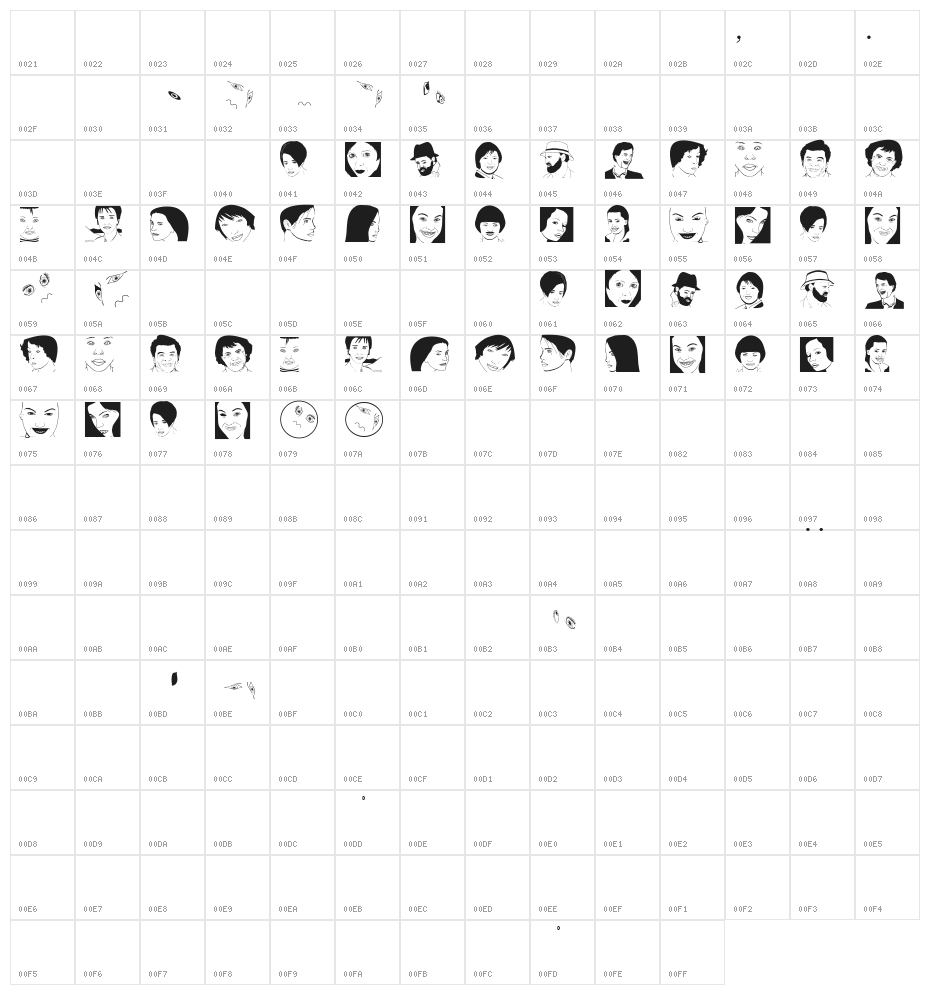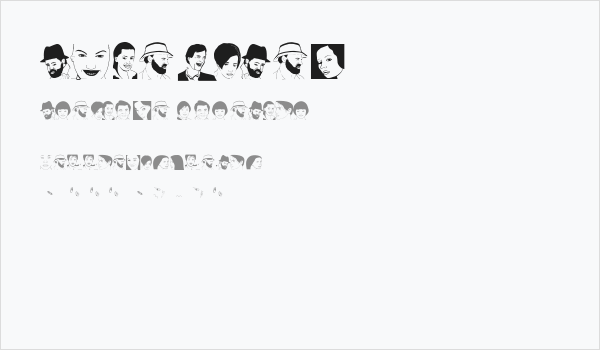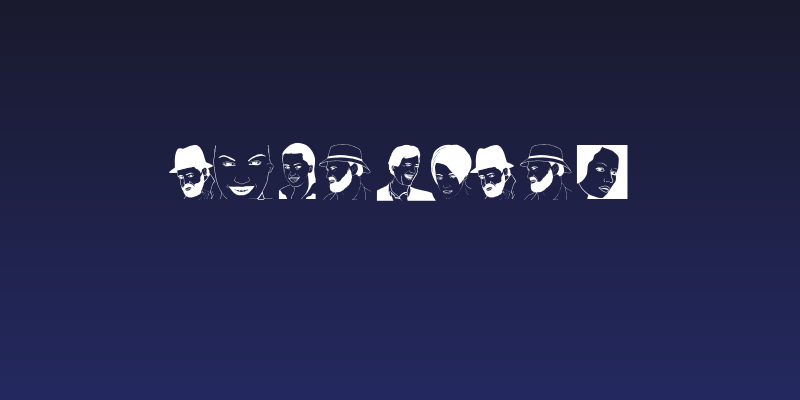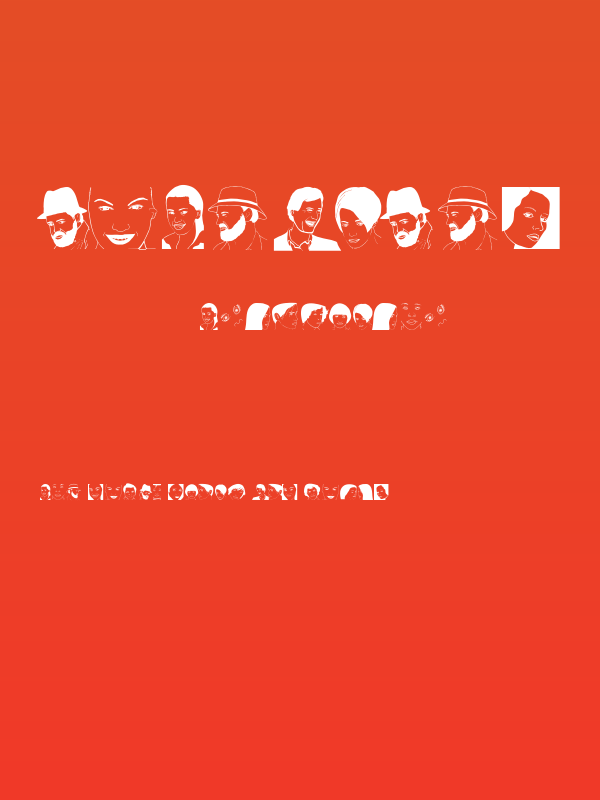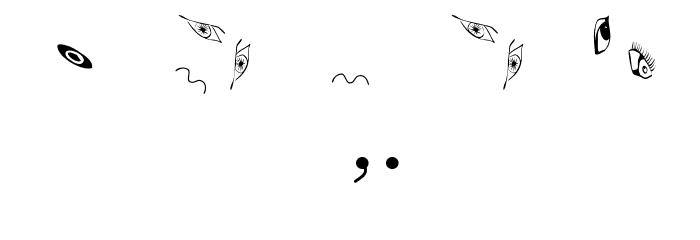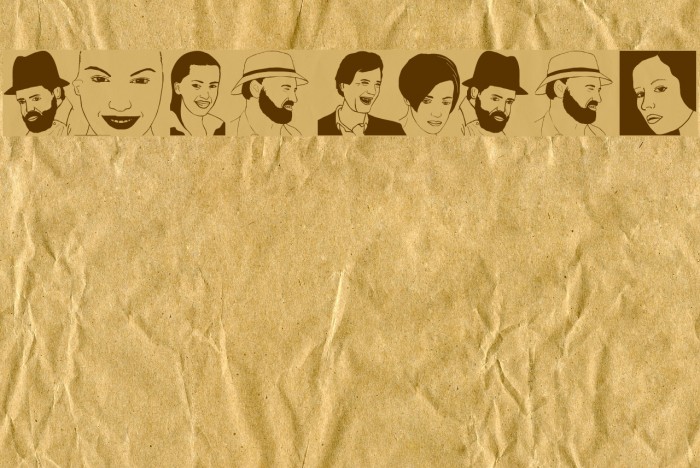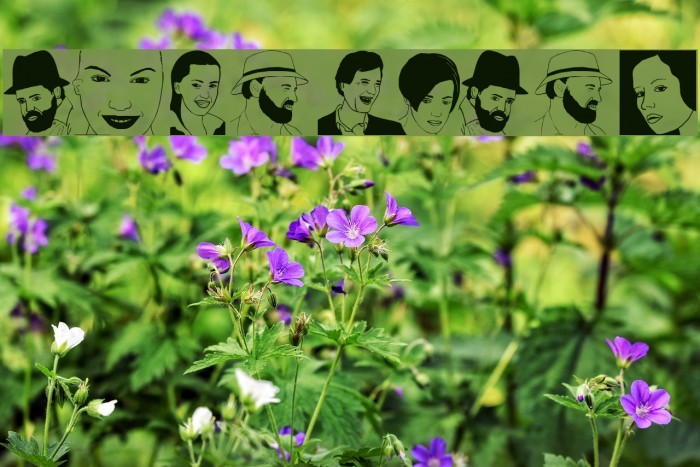
CuteFaces Font
CuteFaces Description
A decorative font featuring stylized illustrations of faces and facial features.
| Overall Style | Playful, Artistic |
| Use Case | Logos, Artistic projects |
| Proposed Projects | Posters, creative designs, novelty items. |